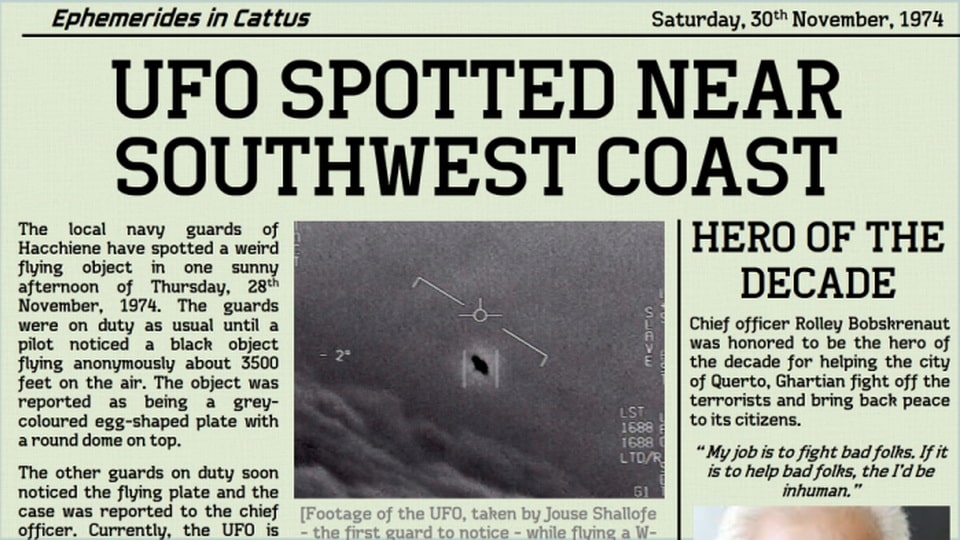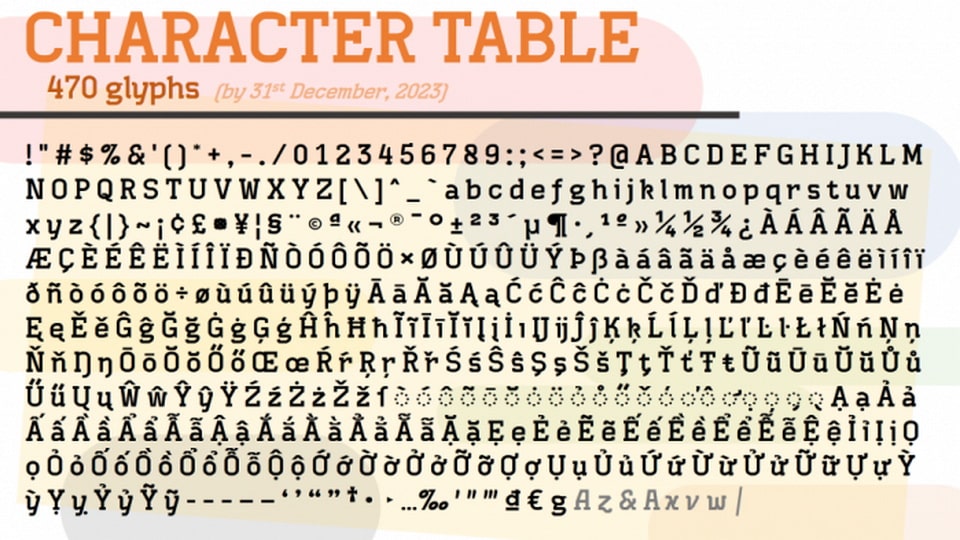
Rouge is a distinctive and versatile semi-upright slab-serif font that strikes a perfect balance between modern sophistication and timeless charm. This typeface combines the sturdy presence of slab serifs with a semi-upright stance, resulting in a unique and contemporary aesthetic.
The letters in Rouge tend to look cool and stylish, their slab serifs providing a solid foundation for a sense of reliability and strength. The semi-upright position adds a touch of dynamism, creating a font that feels both traditional and refreshingly contemporary.
With a clean and straightforward design, Rouge font is legible and versatile, making it an excellent choice for a wide range of applications. From editorial layouts and corporate branding to product packaging and headlines, this font adapts seamlessly to diverse design contexts.
Let Rouge font be the go-to typeface when you need a touch of classic stability with a modern twist. Its semi-upright slab-serif design makes a bold yet refined statement, offering a timeless elegance that suits a variety of design projects with an eye-catching and contemporary flair.